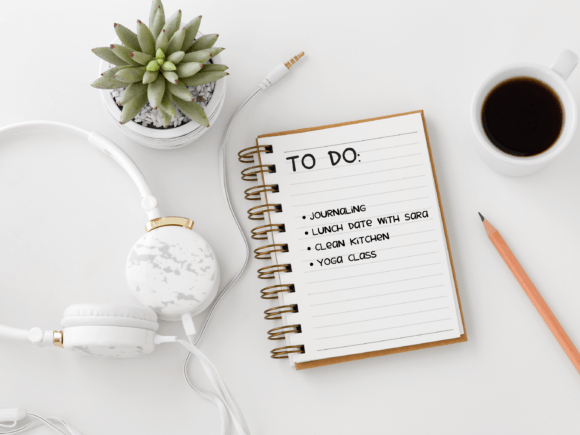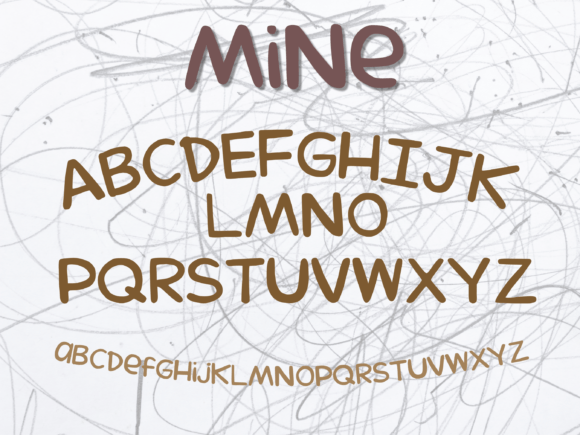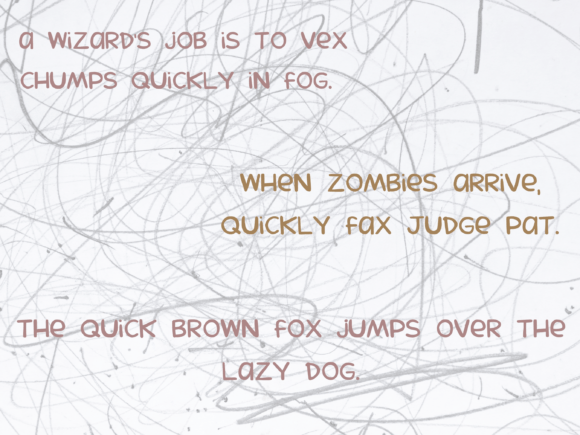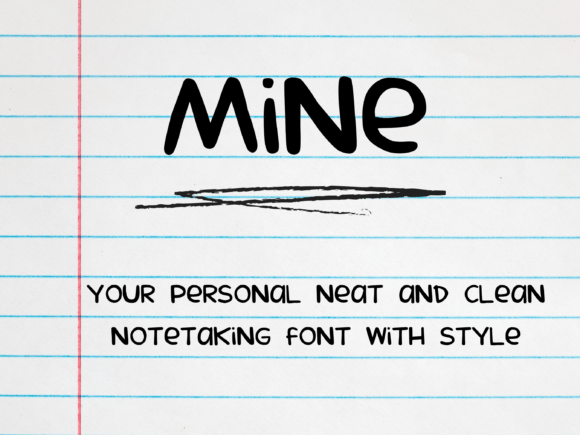
Introduction to Mine Font
Mine is a fun and quirky handwritten font.
Mine is a fun and quirky handwritten font. Whether you’re using it for crafts, digital design, presentations, or making greeting cards, this font h
Key Features of Mine Font
Why Choose Mine Font?
Mine Font offers exceptional quality and versatility, making it a valuable addition to your design toolkit. Whether you’re creating for personal projects or commercial use, Mine Font delivers professional results.